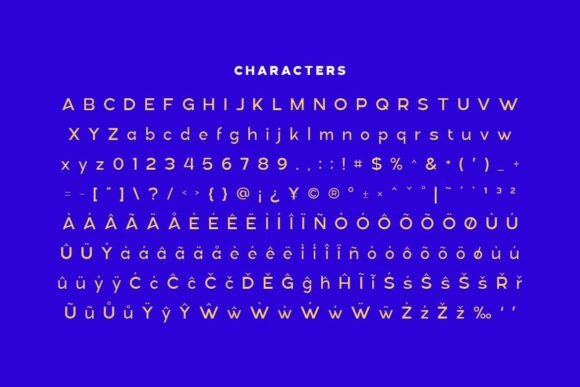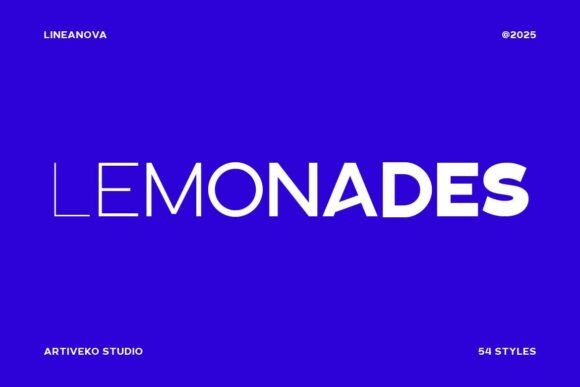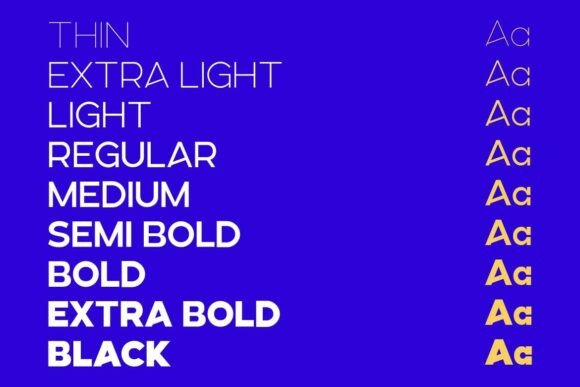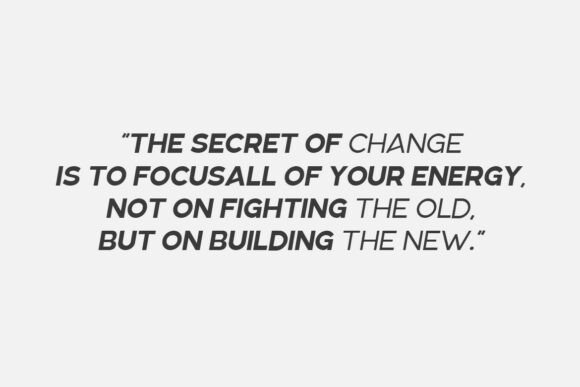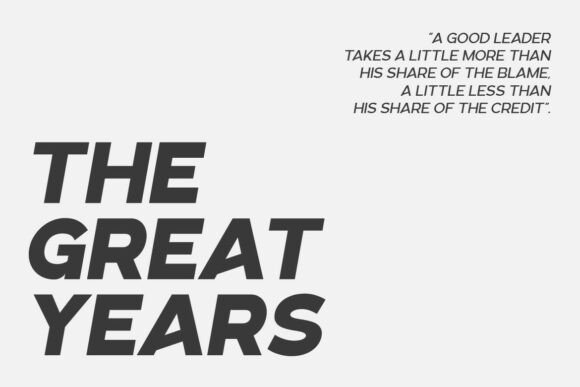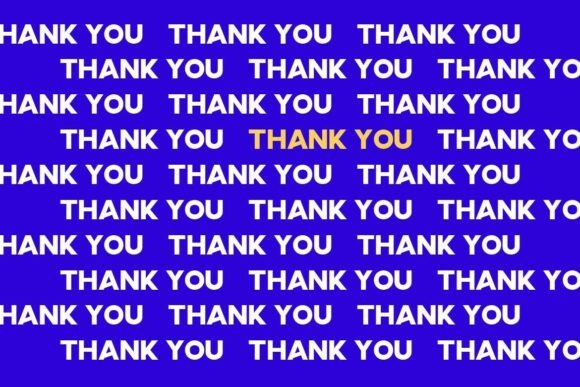
Introduction to Lineanova Font
LineaNova is a sleek and contemporary sans serif font family designed for flexibility and elegance.
With its clean lines, geometric shapes, and perfectly balanced proportions, LineaNova delivers exceptional readability and modern sophistication for all types of design projects .
Key Features of Lineanova Font